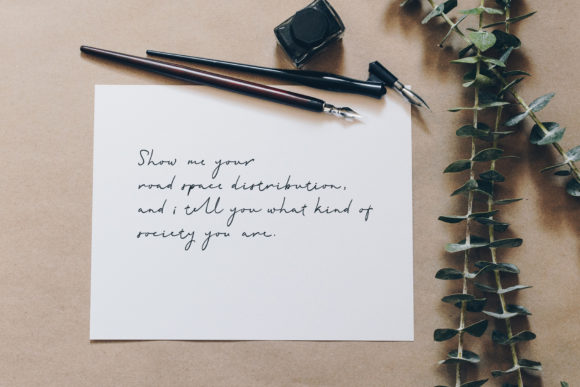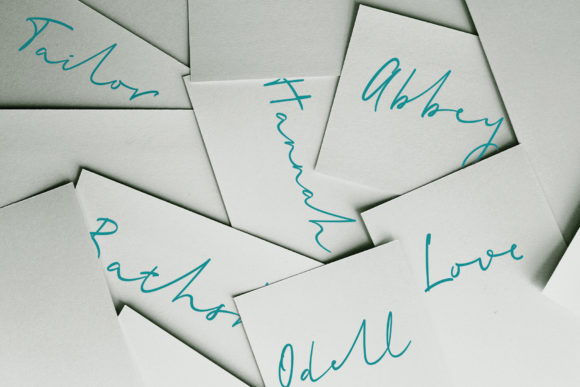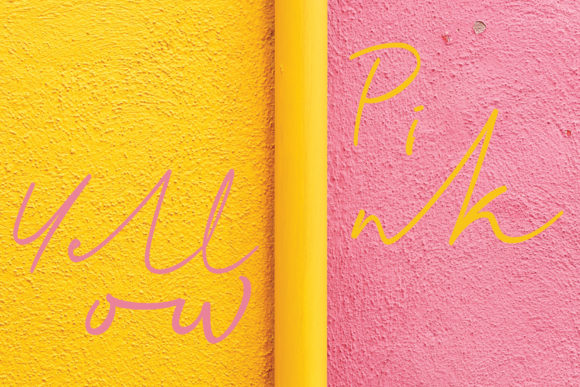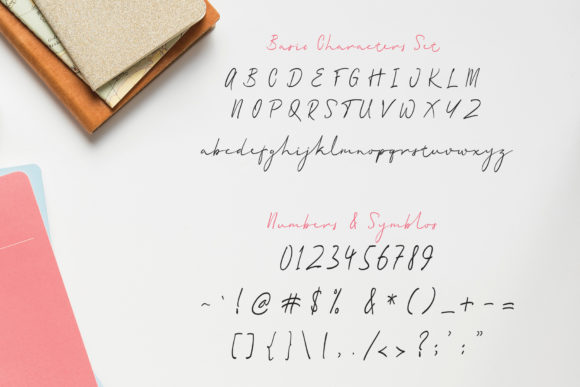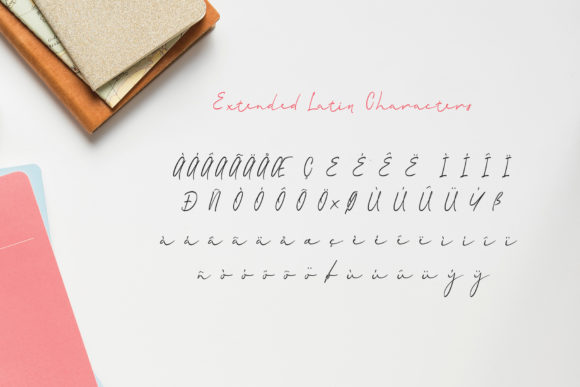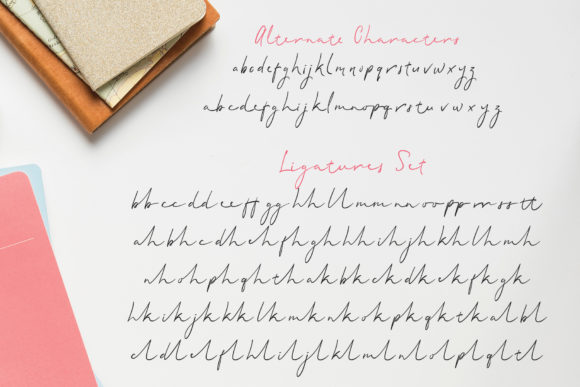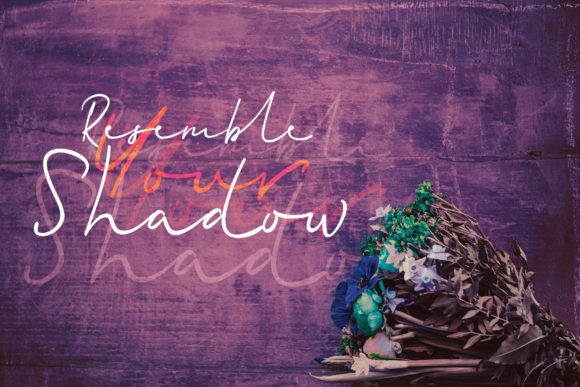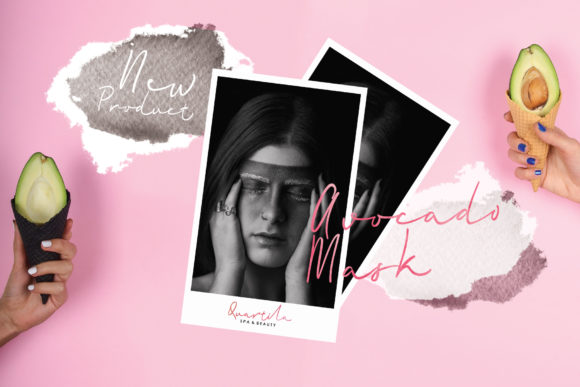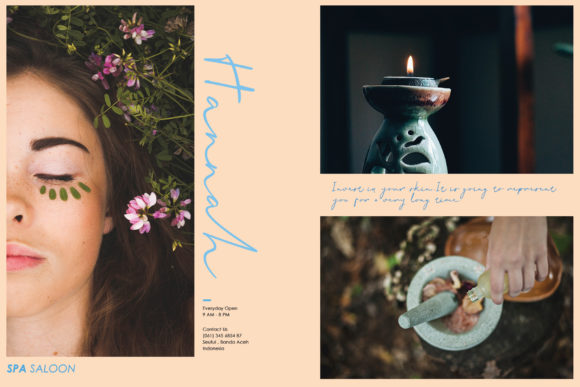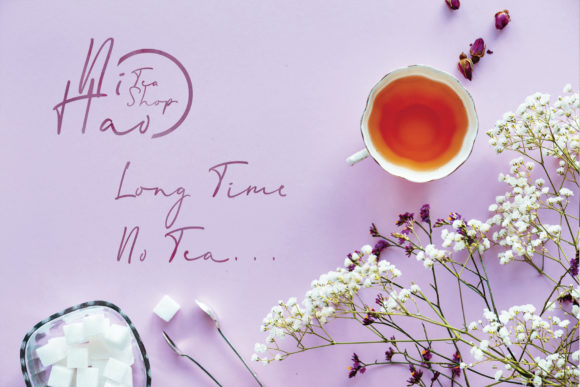
Quartila Font
About Quartila Font
The Quartila is a beautiful handwritten script. It has an elegant and feminine style which makes it perfect for adding a luxurious feel to your designs.